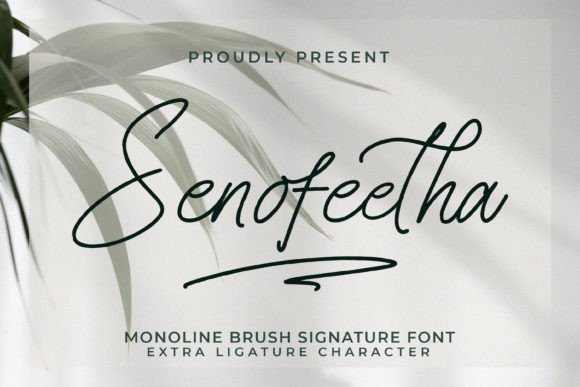
Step into a world of elegance and charm with Senofeetha, the exquisite Monoline Brush Signature Font that captivates hearts with its captivating strokes and timeless aura. Created by integritypestudio, this masterpiece is a true gem for those seeking a touch of luxury in their designs.
With the perfect balance between boldness and finesse, Senofeetha dances across your designs like a graceful ballerina, adding a touch of sophistication to your every creation. Its versatile nature makes it a perfect fit for an array of projects, including logos, branding, homeware designs, packaging, and beyond.
Imagine your designs adorned with the allure of Senofeetha, a font that whispers elegance and commands attention. Your products will exude an air of exclusivity, leaving a lasting impression on your customers. Whether you're creating a stunning logo for your business or crafting personalized invitations for a special occasion, Senofeetha will elevate your designs to new heights.
Visualize your packaging designs adorned with the enchanting curves of Senofeetha. Your products will leap off the shelves, captivating customers with their undeniable charm. The font's innate ability to evoke a sense of luxury will make your products stand out from the crowd, leaving an indelible mark on your customers' minds.
Senofeetha is not just a font; it's an experience. Its effortless flow and captivating presence will ignite your creativity and unlock a world of possibilities. Your designs will radiate an aura of sophistication, leaving a trail of admiration wherever they go.
Immerse yourself in the world of Senofeetha and let your creativity flourish. Embrace the boundless opportunities it presents and craft designs that speak volumes. With Senofeetha as your ally, your designs will captivate, inspire, and leave an enduring legacy.